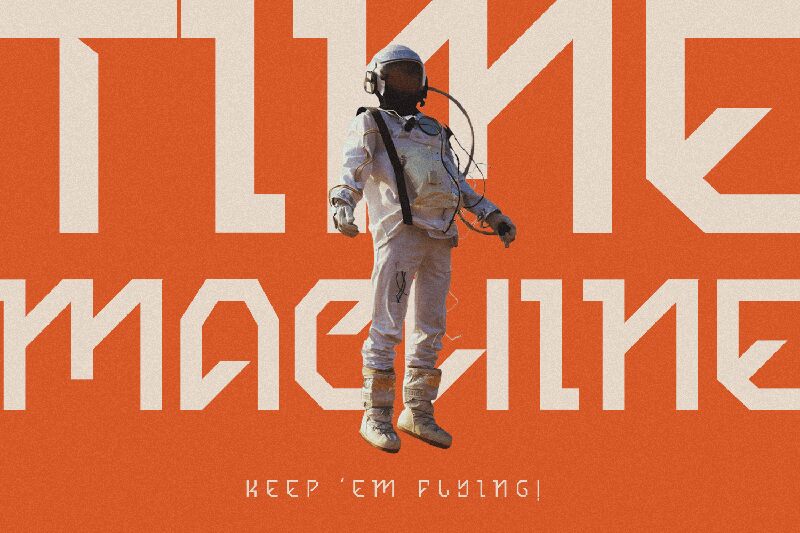
Basilisk, designed by FactoryType, is an exceptional display font that seamlessly blends futuristic and retro elements.
Its techno style exudes a sense of innovation, making it the perfect choice for any sci-fi space thriller. With its semi-light weight and semi-expanded width, Basilisk adds an intriguing touch to your designs. Whether you're working on a movie poster or a video game cover, this free-to-download font offers various weights to suit your typographic needs.